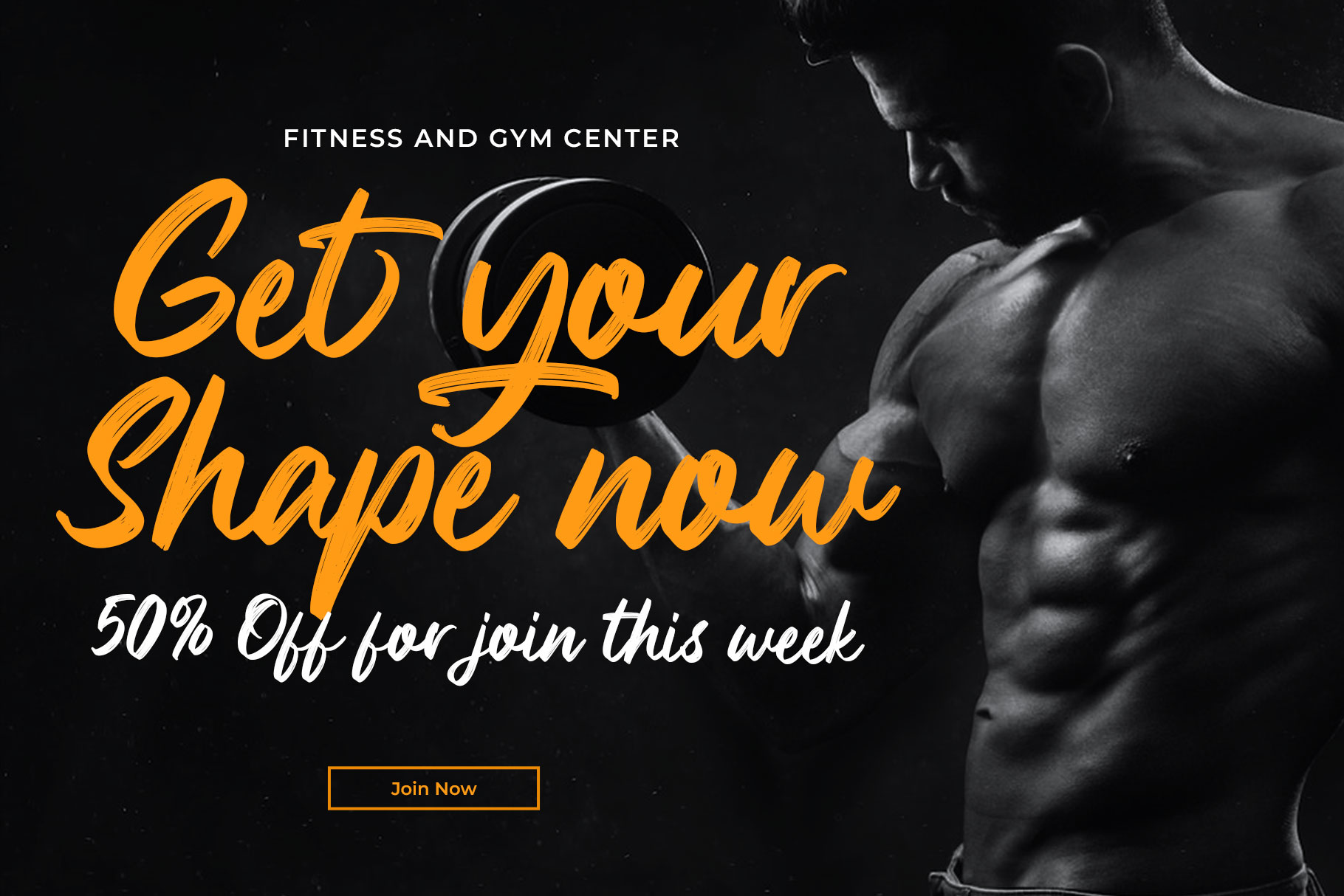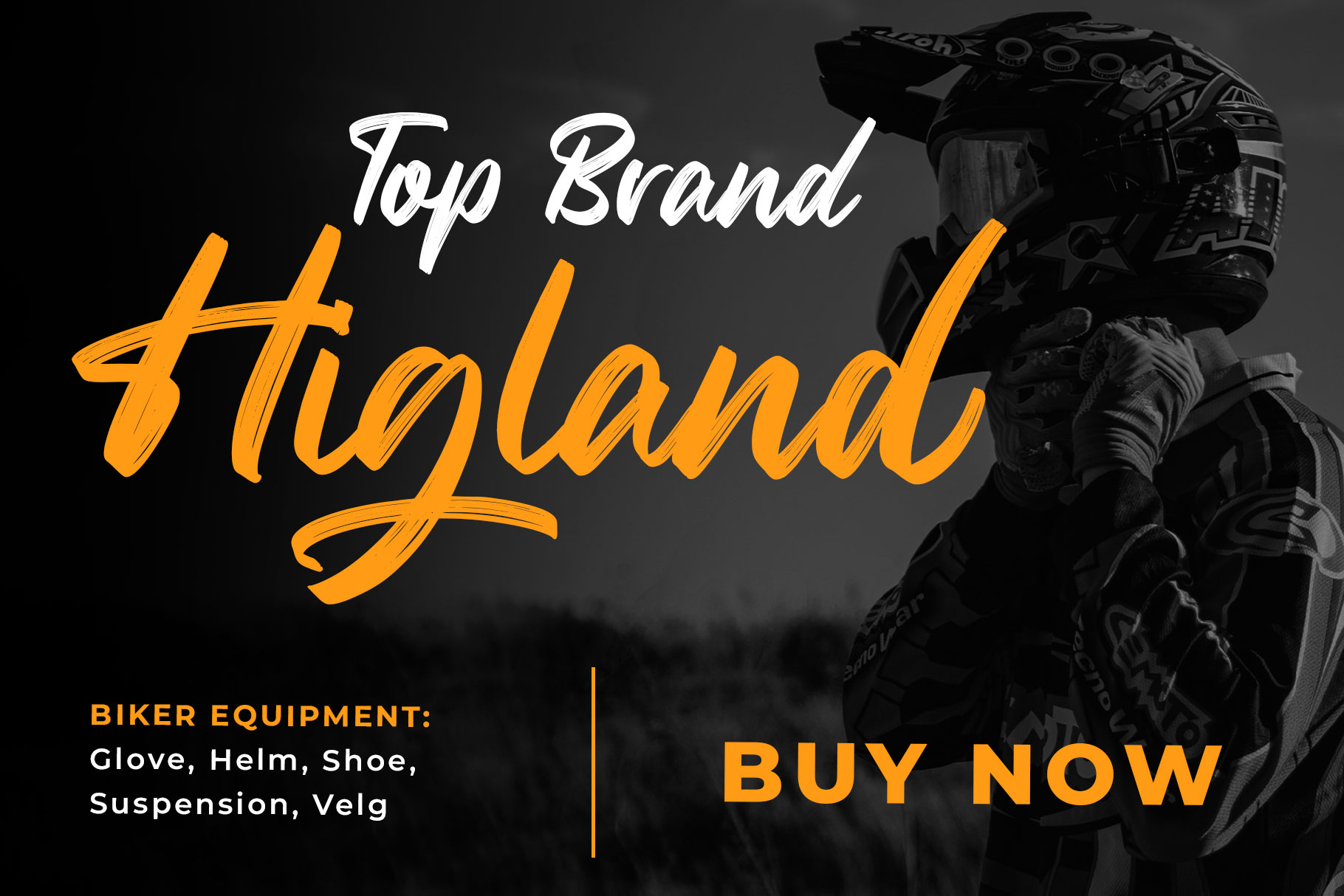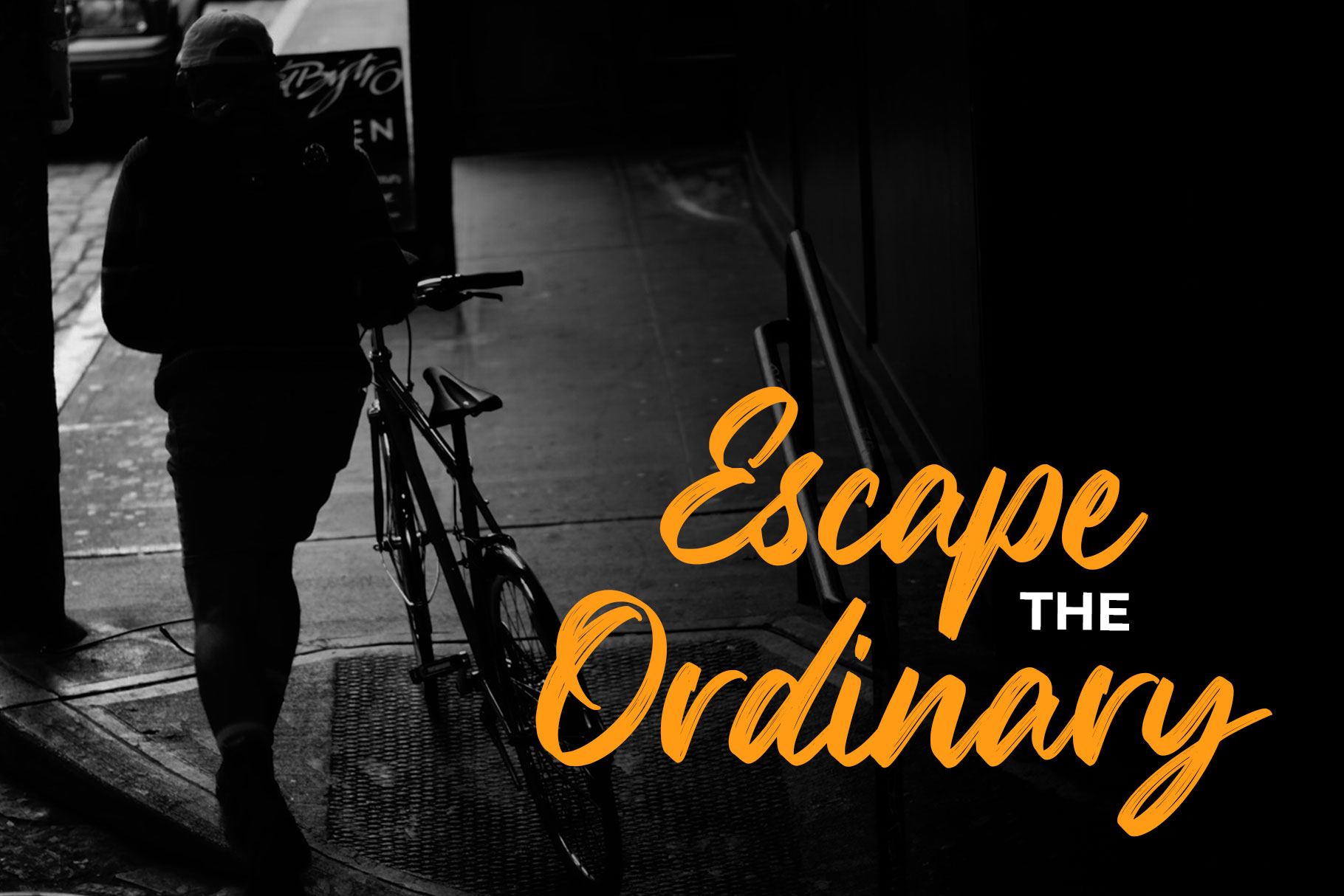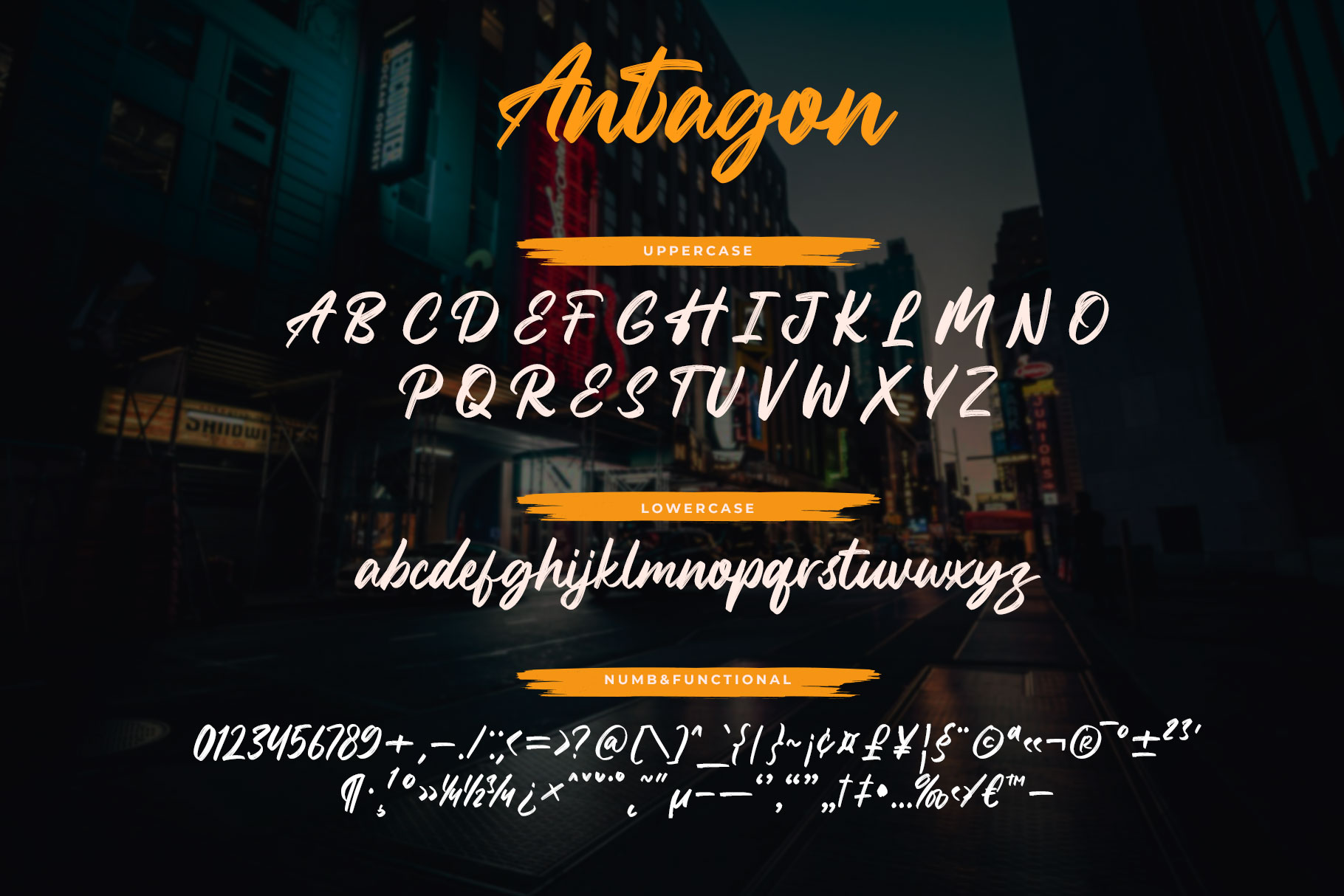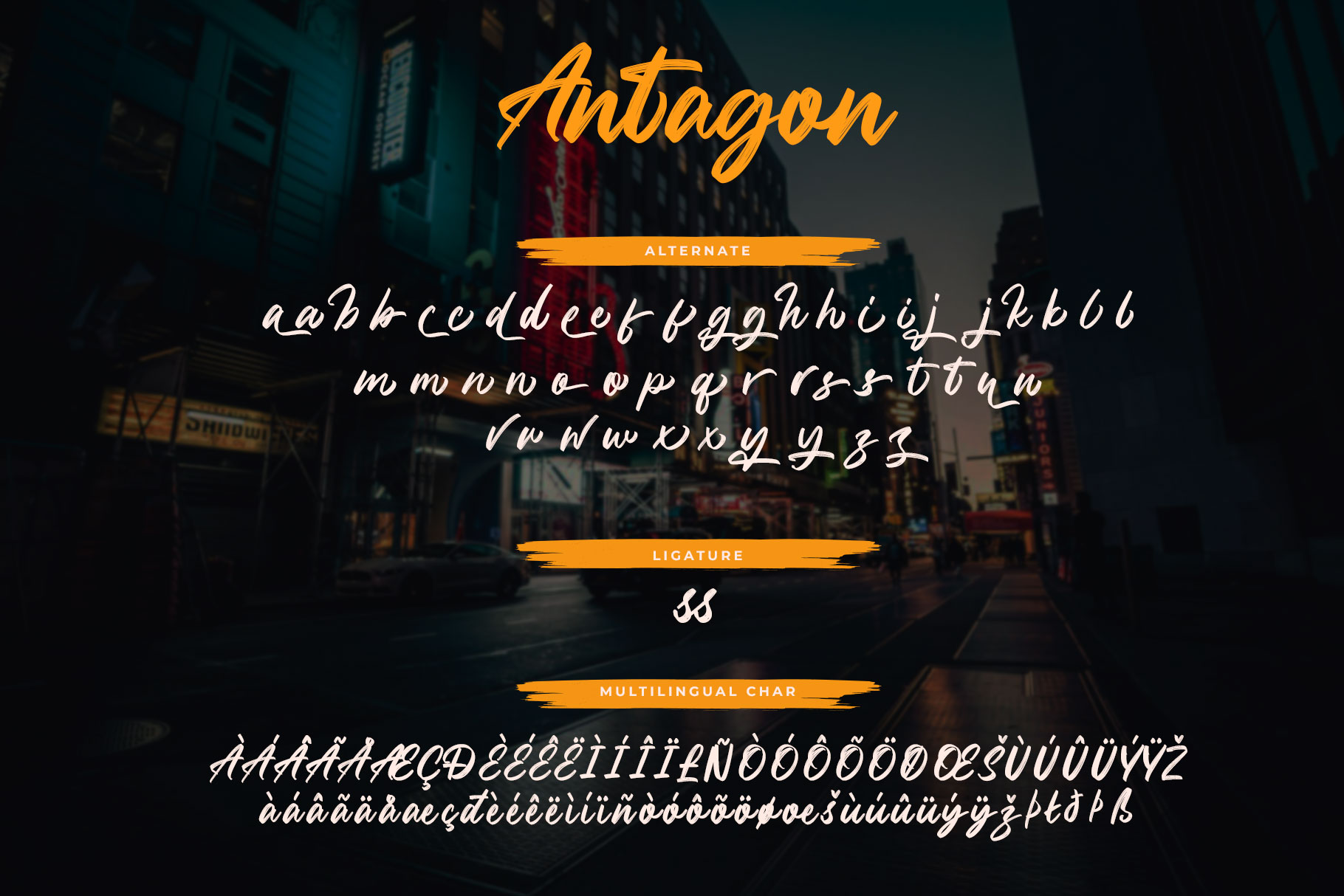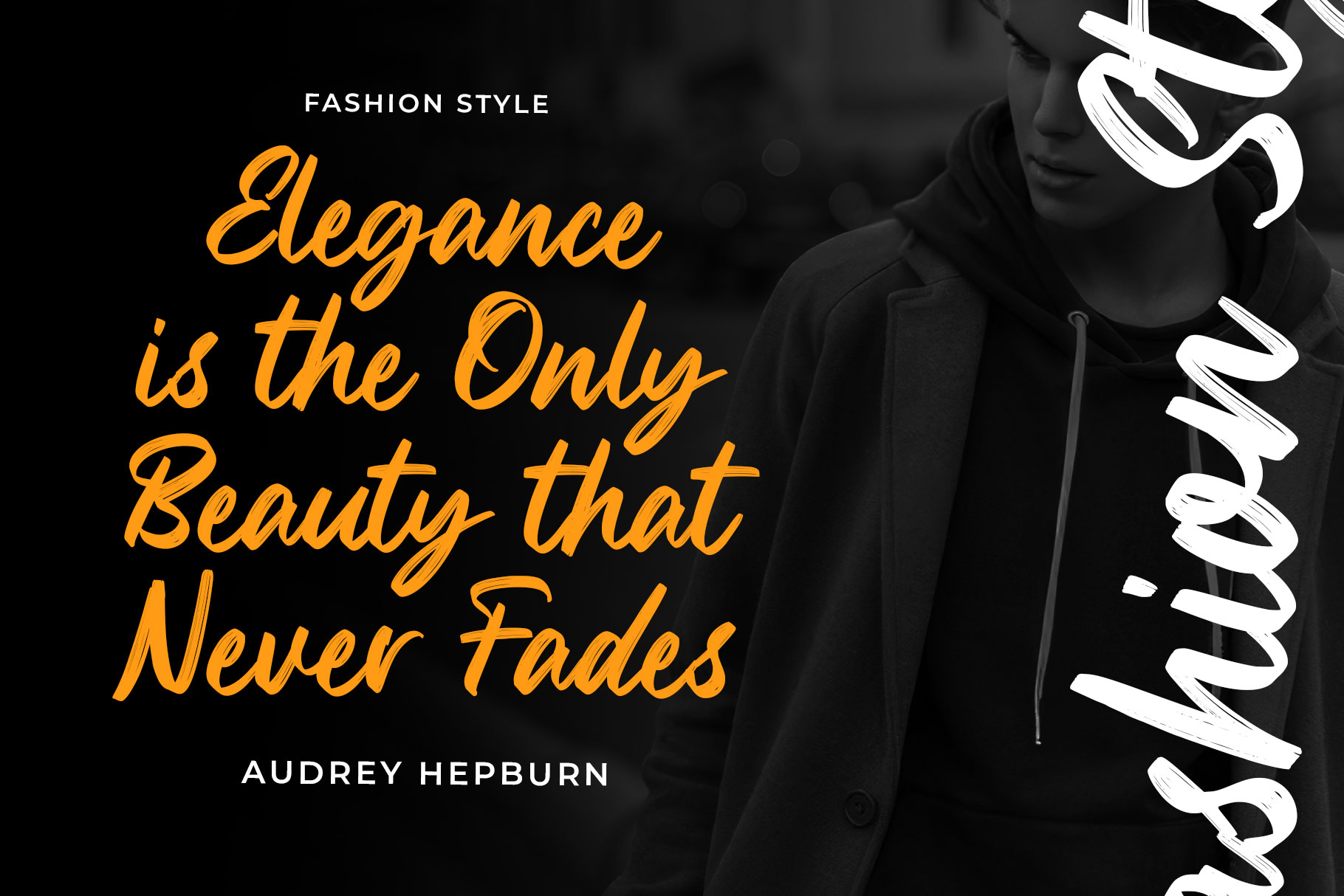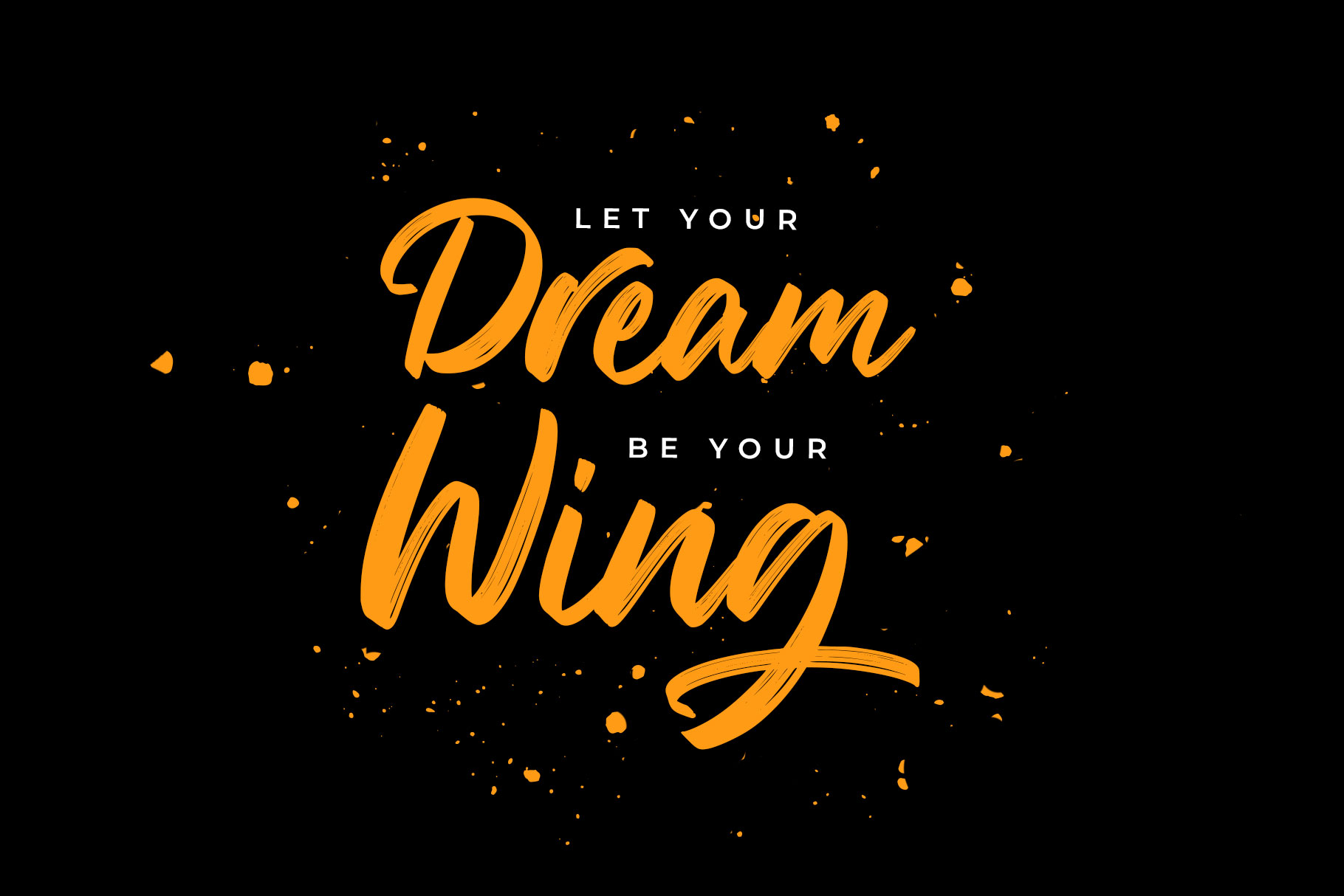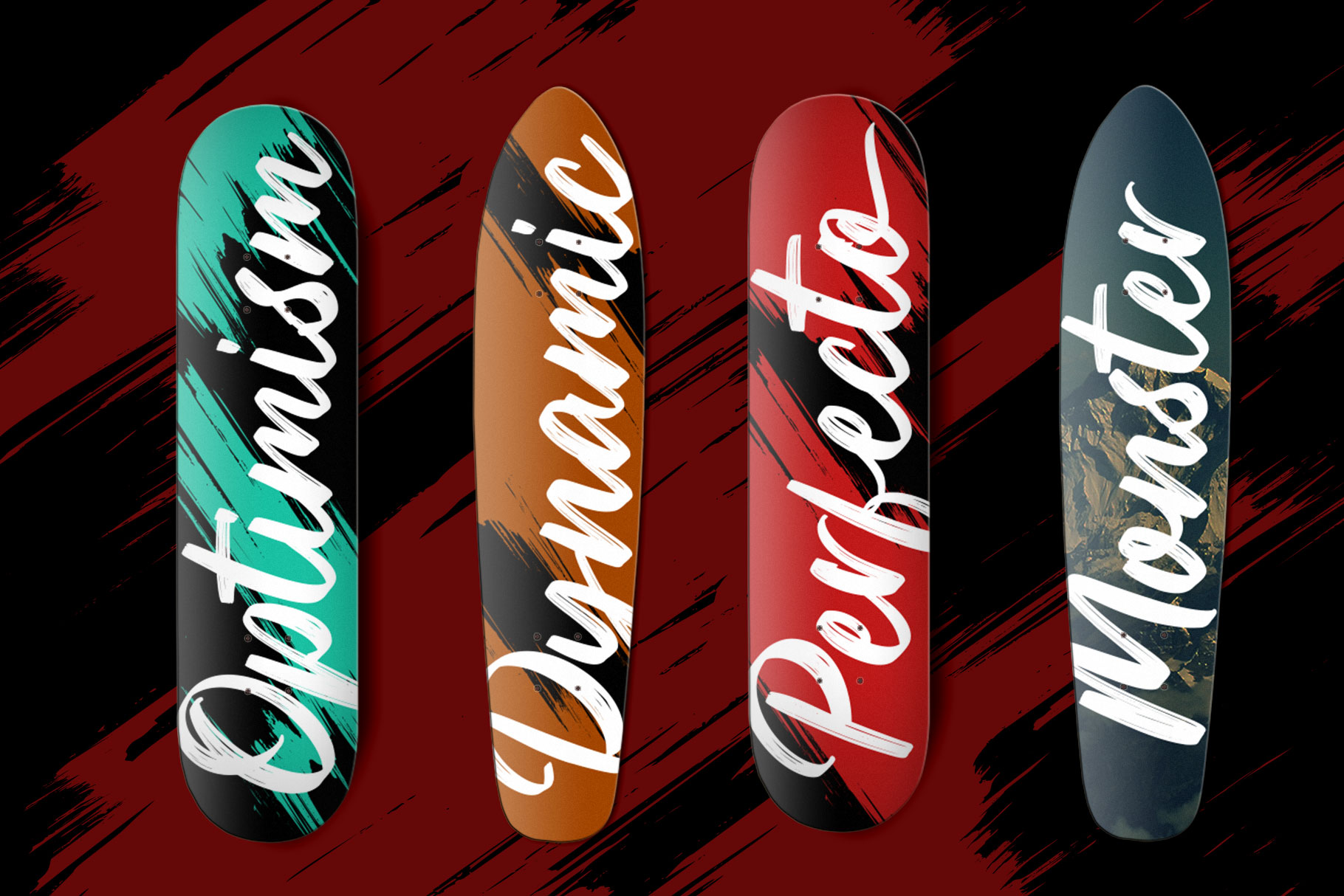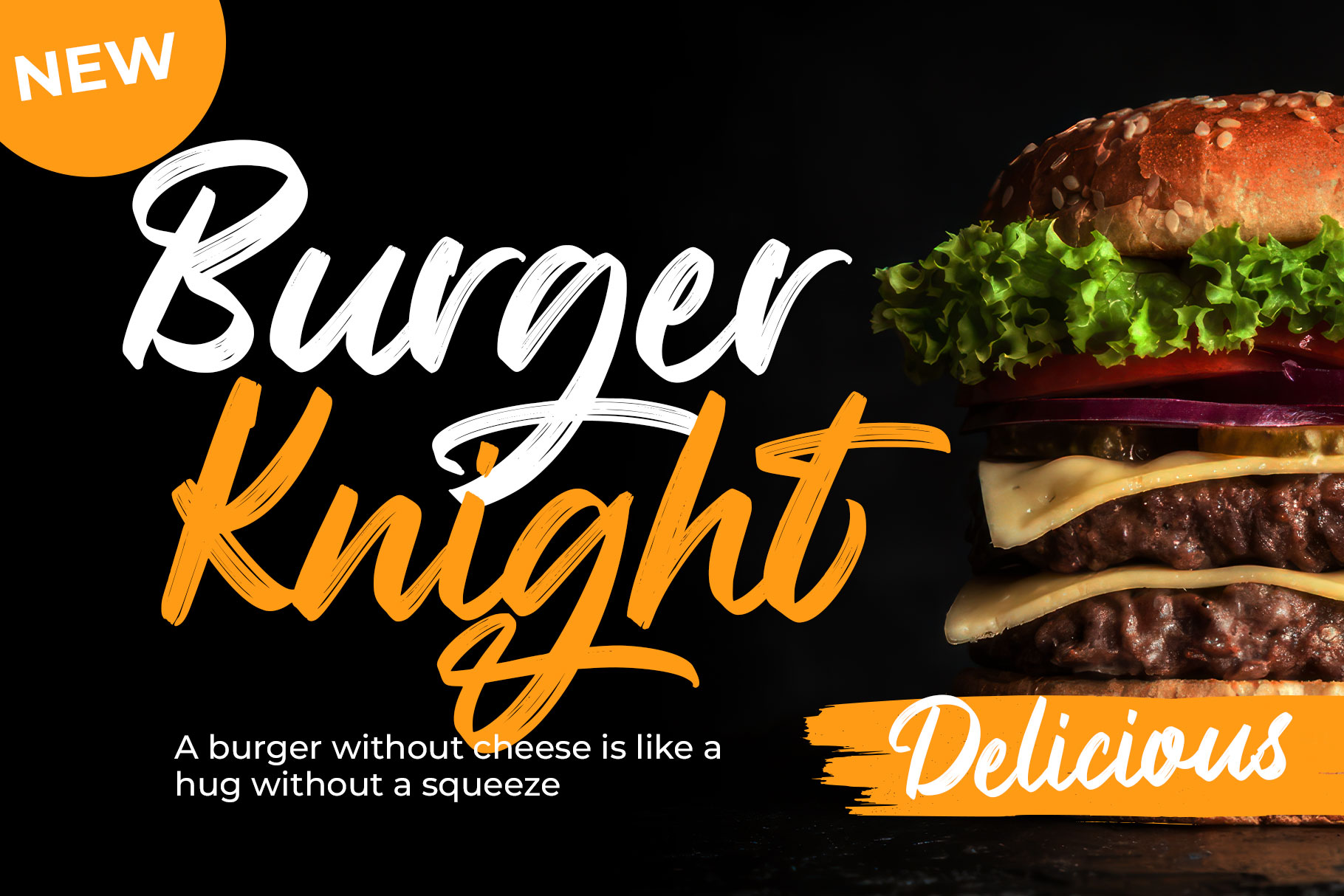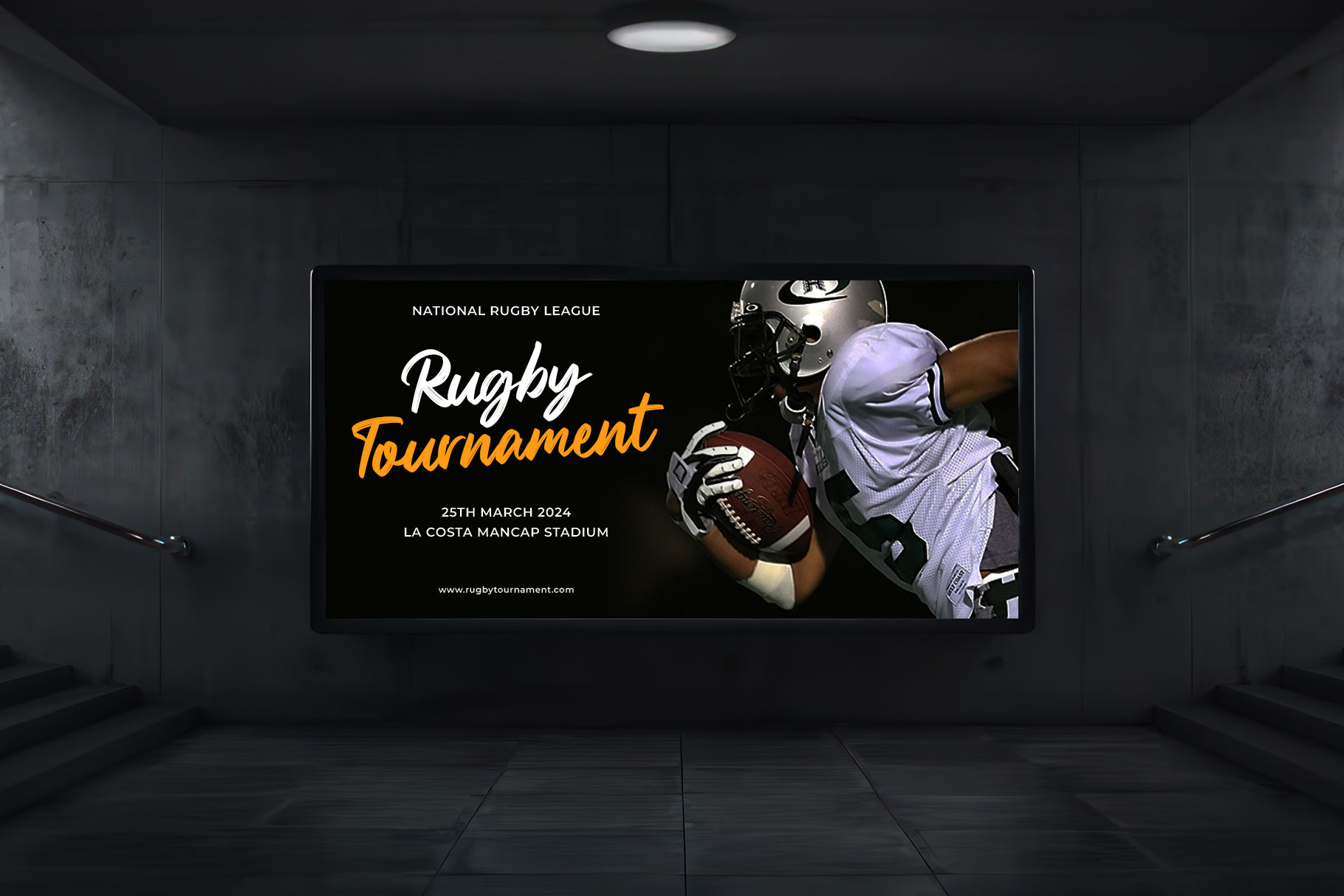
Antagon Brush Script Font
Antagon is brush script font with the natural flow scratches. Stylish and versetile is good combination for this font to make your design project more attractive.